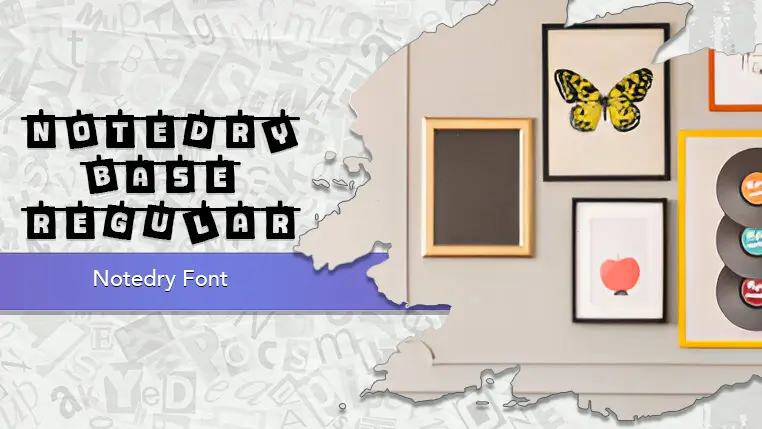
The Notedry font family may be ideal for you if you enjoy working on an artistic design project. The lively, expressive look of this typeface, which was created by Khurasan, makes it ideal for Creative and Kid-Friendly Designs, Journaling and Scrapbooking Themes, Sticker Designs, Social Media Graphics, Informal Invitations and Greeting Cards and Headlines and Short Phrases and other light-hearted visual projects.
Regular, Regular are the two primary font styles of the Notedry font family. You may build dynamic, visually appealing text layouts with the distinct flair that each style offers. With crisp, readable lines and a relaxed tone.